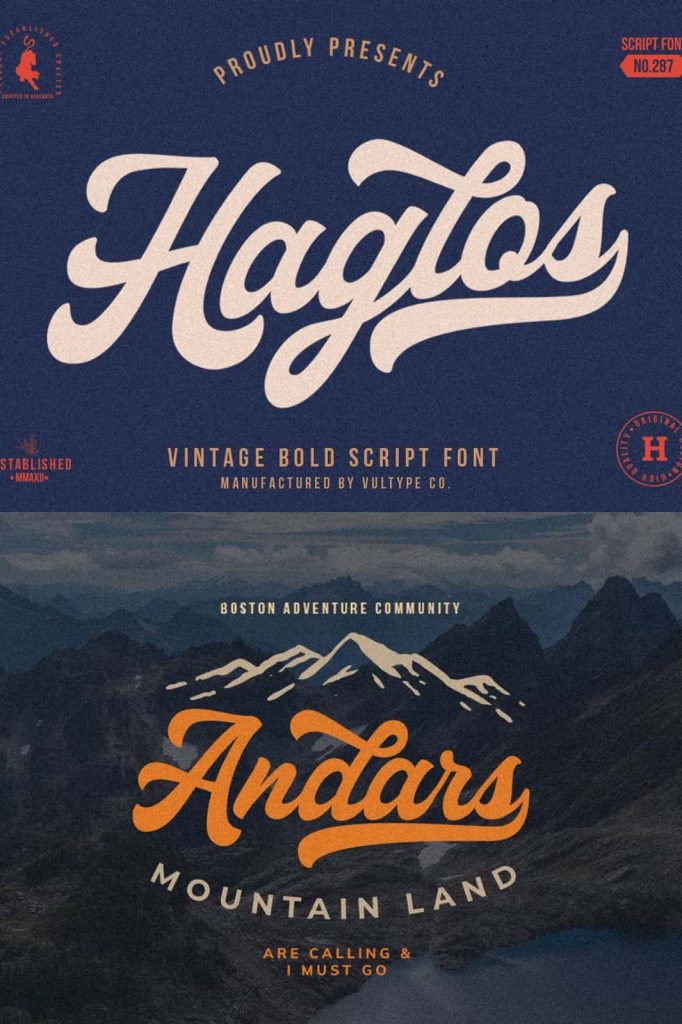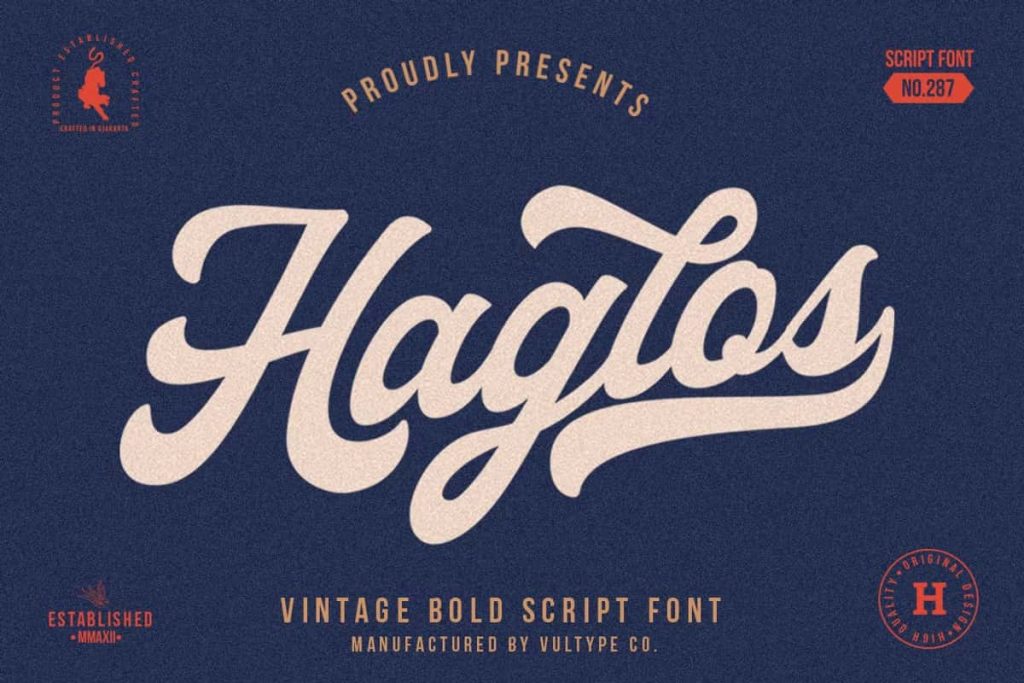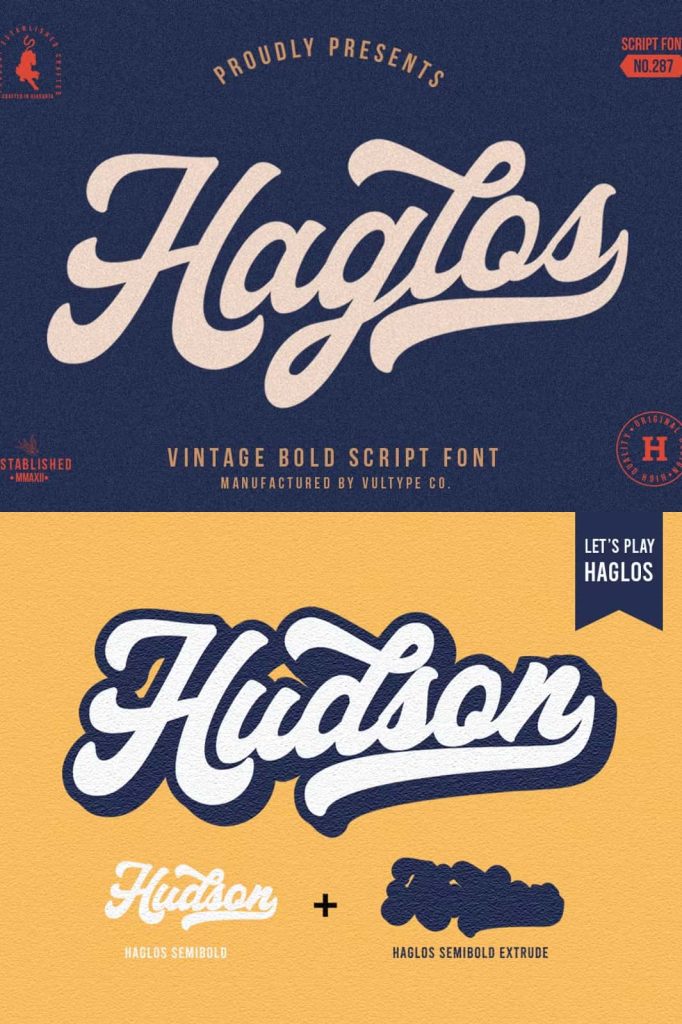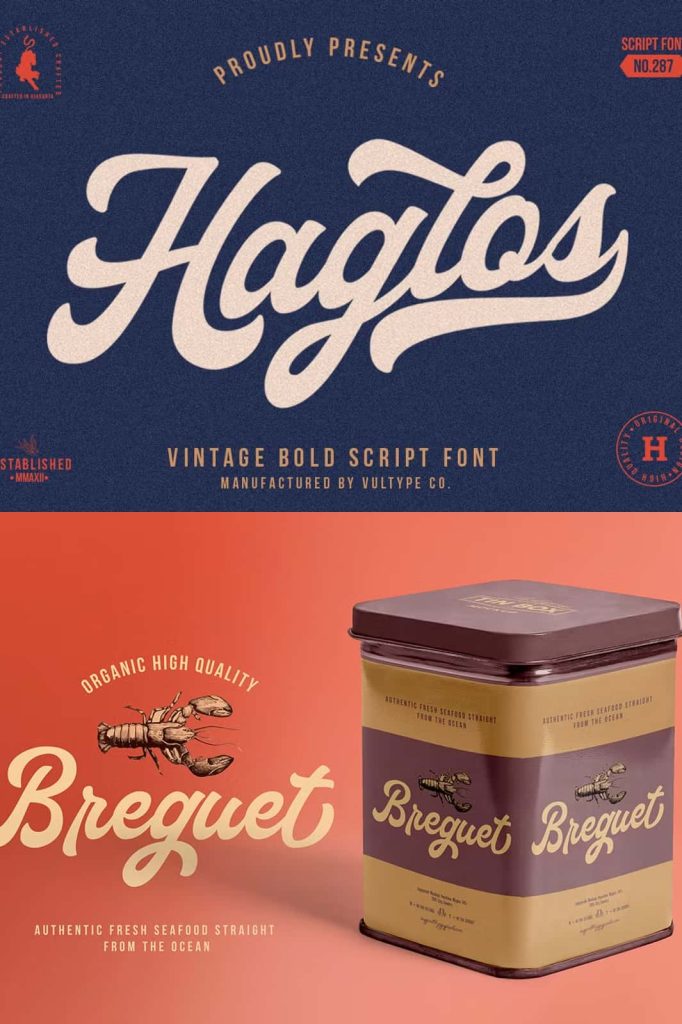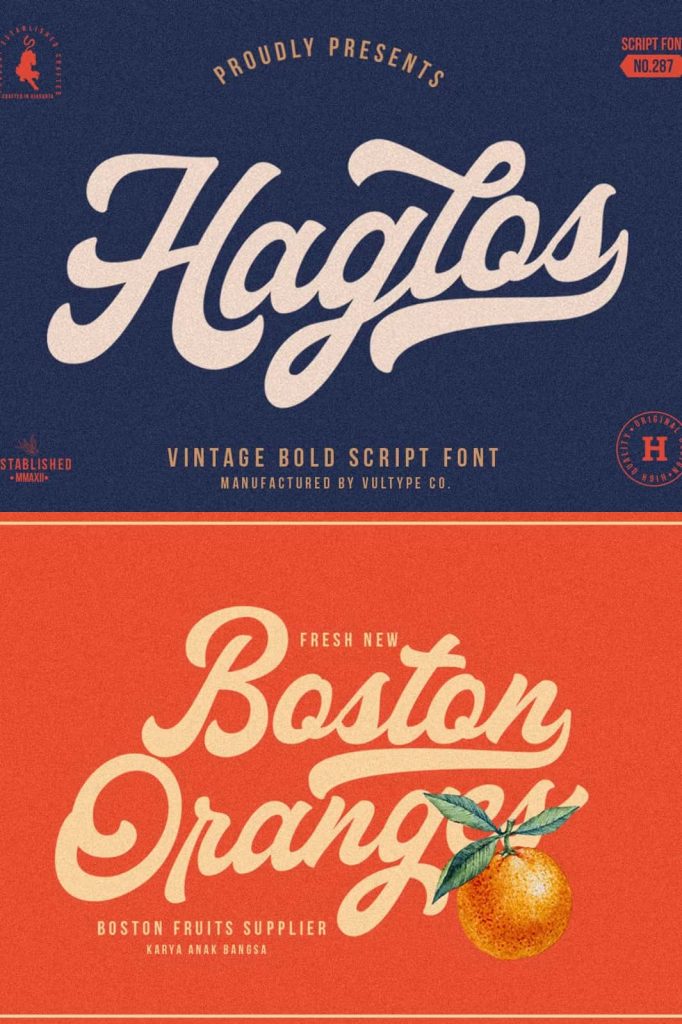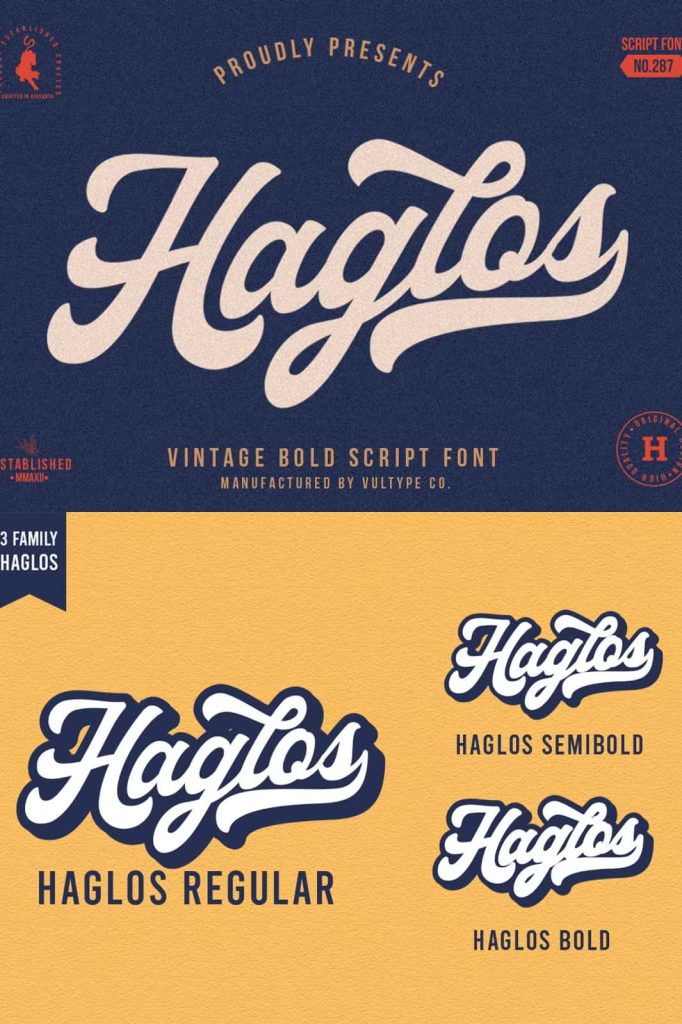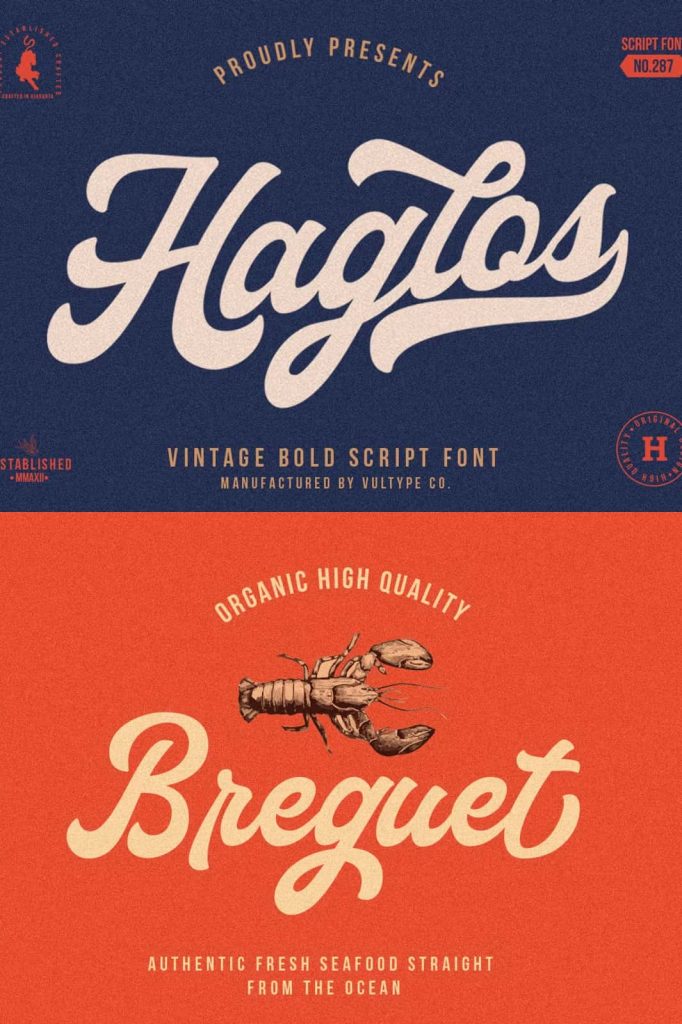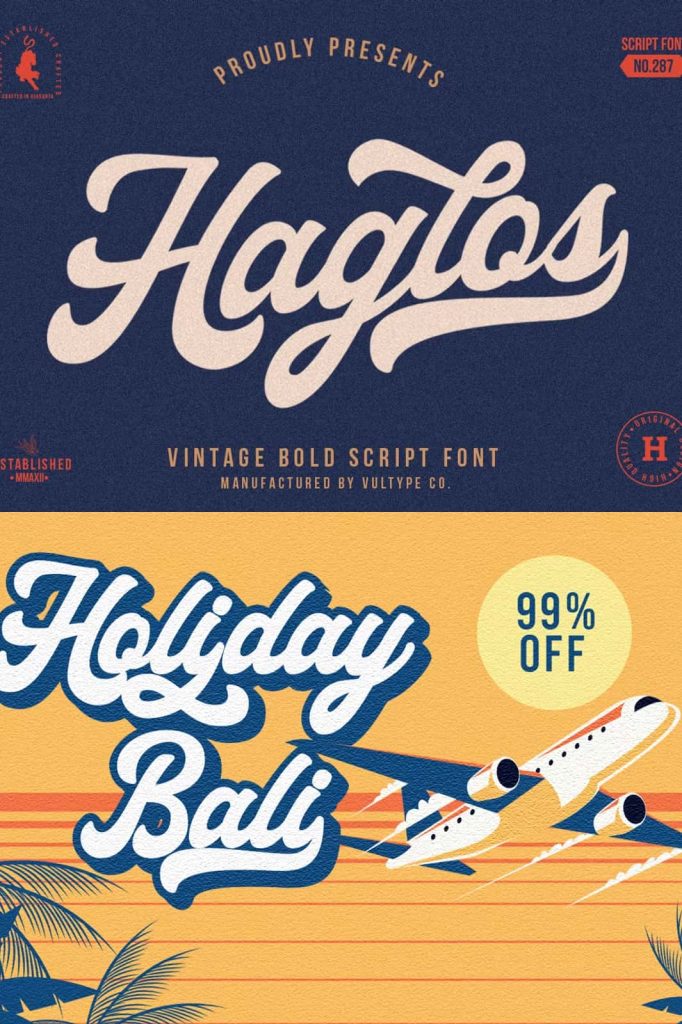
Haglos Script allowing you to create hand lettering is an instant and a super handy set of bonus Swash. Ideal for logos, handwritten quotes, product packaging, header, poster, merchandise, social media & greeting cards.